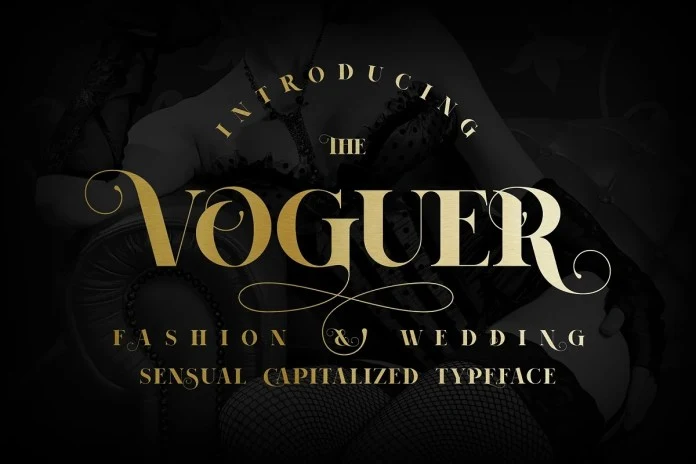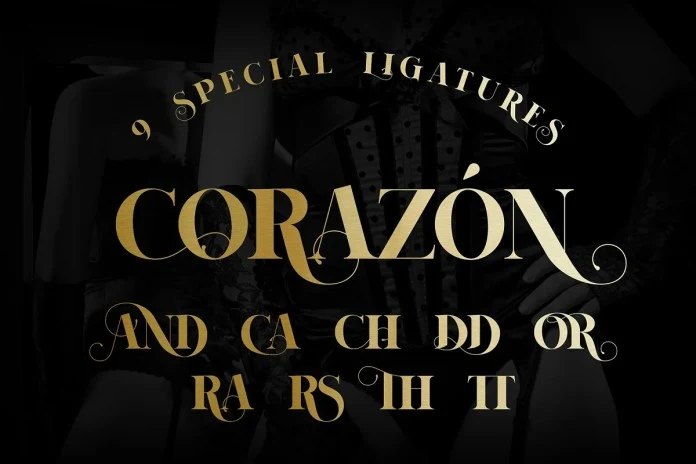
This is a modern serif typeface from NREY that is both memorable and stylish. Inspired by the fashion glossy magazines typography. It perfectly represents modern and vintage esthetics. The font includes special uppercase letters, alternate characters and beautiful ligatures. You may combine uppercase and smallcase in the text body, as you want. The font is perfect for wedding elegant invitation cards, beauty and fashion package design.